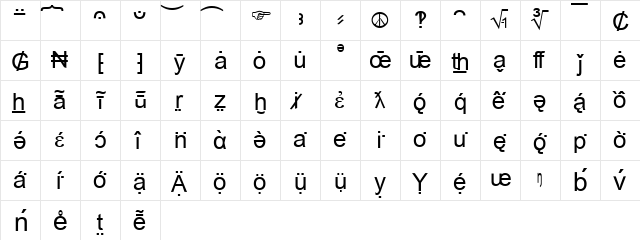
TWA Others Regular
Design Context for TWA Others Typeface
TWA Others takes a measured approach to typography — its balanced proportions and neutral character make it a reliable workhorse for both digital and print work.